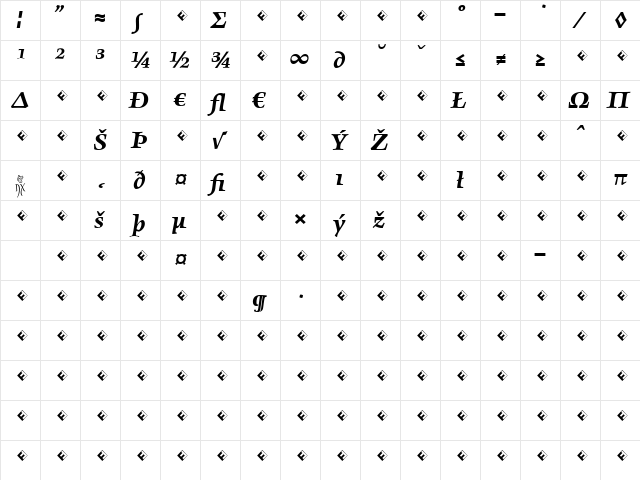
Angkoon-BoldItalicExpert Regular Font Preview
| Foundry | Xavier Dupre, published by FontShop International for the FontFont Library |
| Designer | Xavier Dupre |
Design Context for Angkoon-BoldItalicExpert Typeface
Angkoon-BoldItalicExpert offers clean, dependable letterforms without strong stylistic allegiance, making it a practical choice for designers who need flexibility. The dynamic lean of this cut emphasises speed and emphasis in any layout. The heavy weight commands attention and anchors typographic hierarchies.
Pro Tip: Try Angkoon-BoldItalicExpert for annotation and caption copy alongside an upright companion — the contrast in angle creates a dynamic but ordered typographic system.